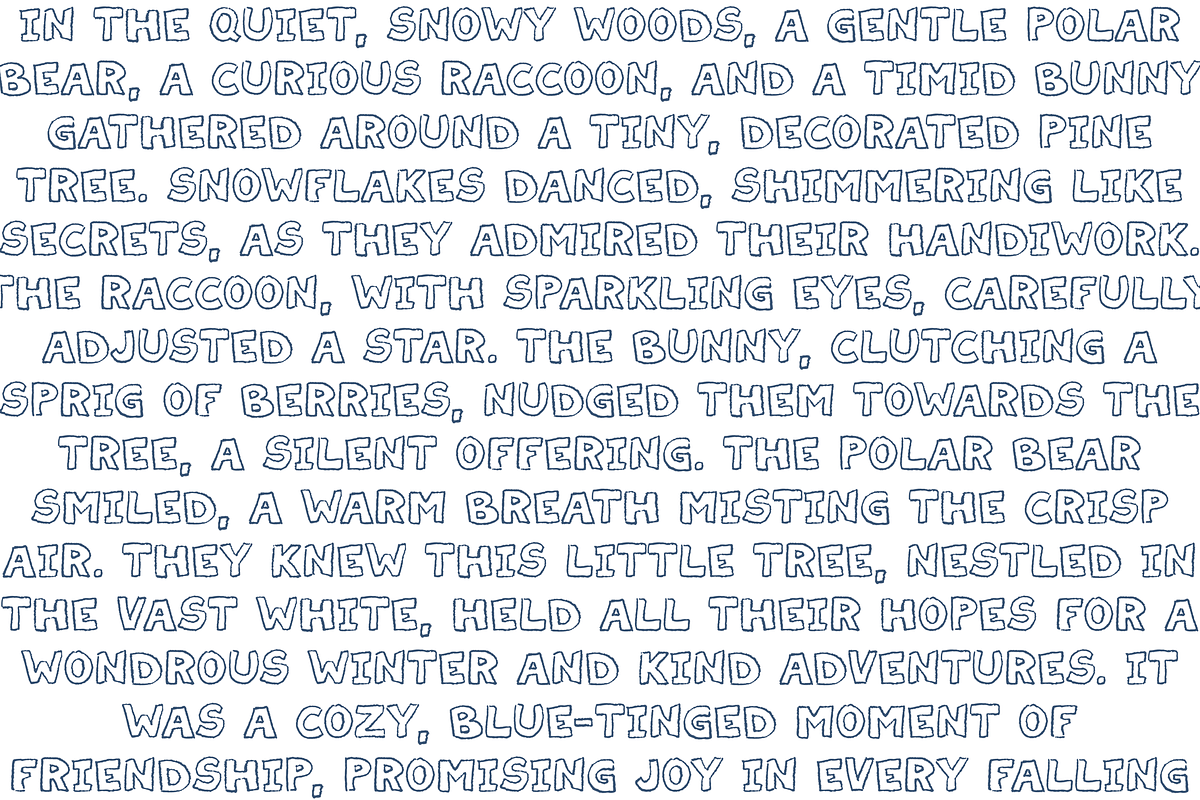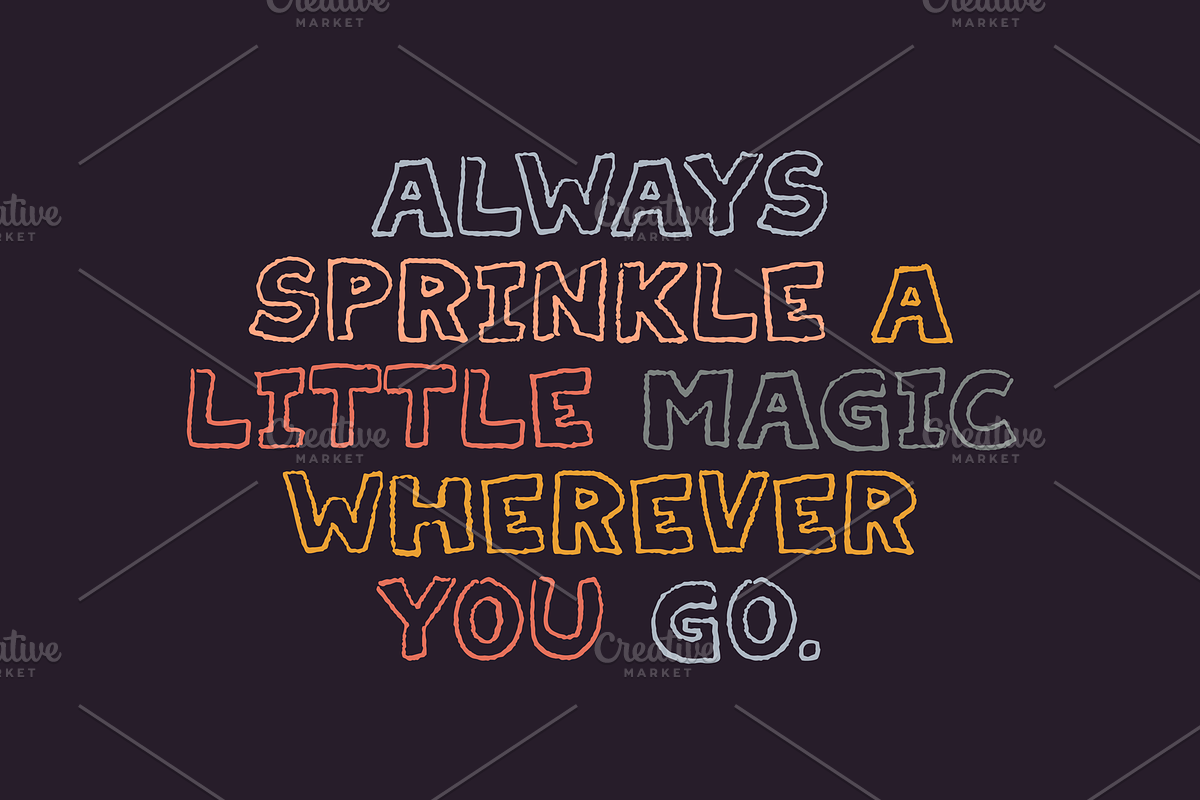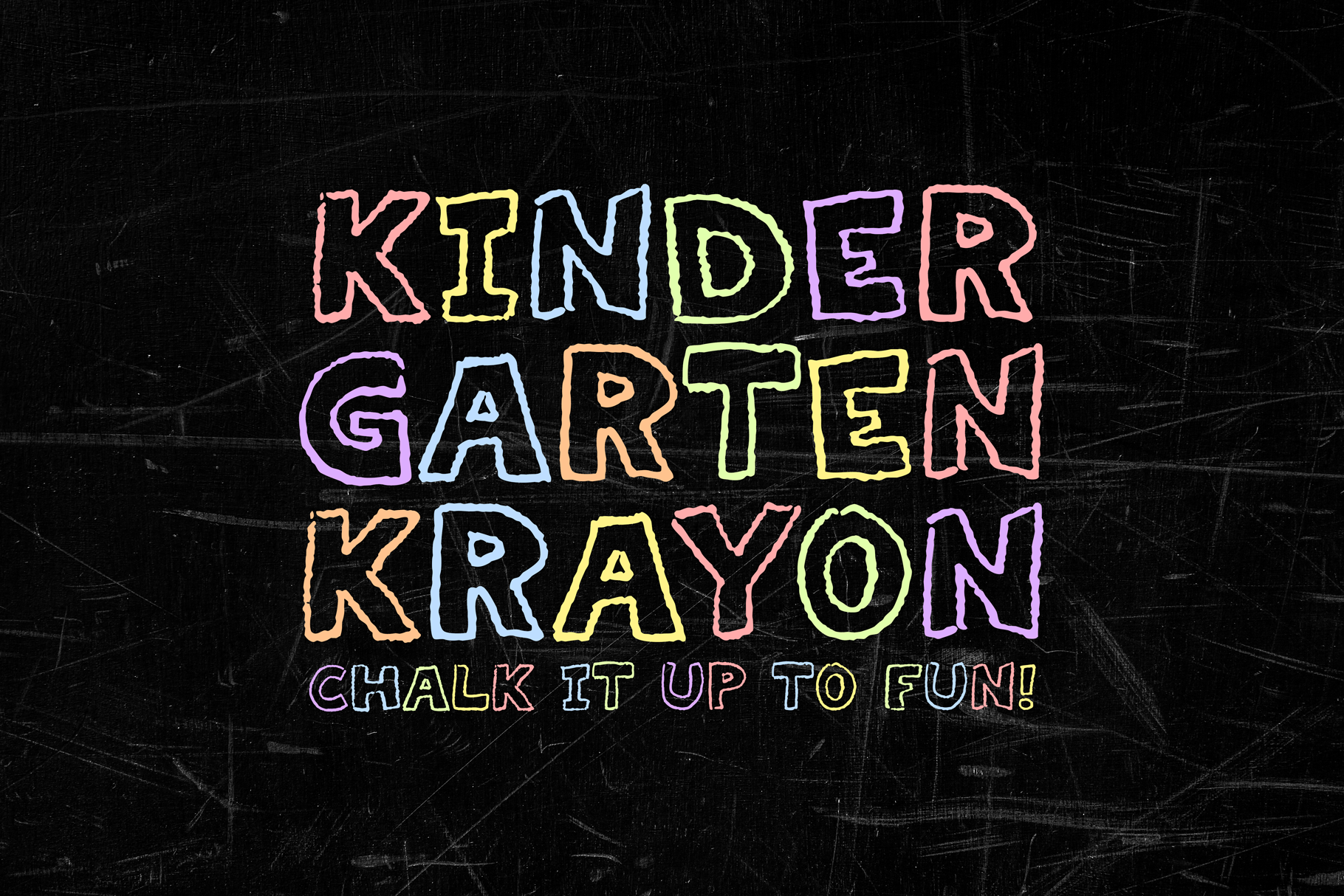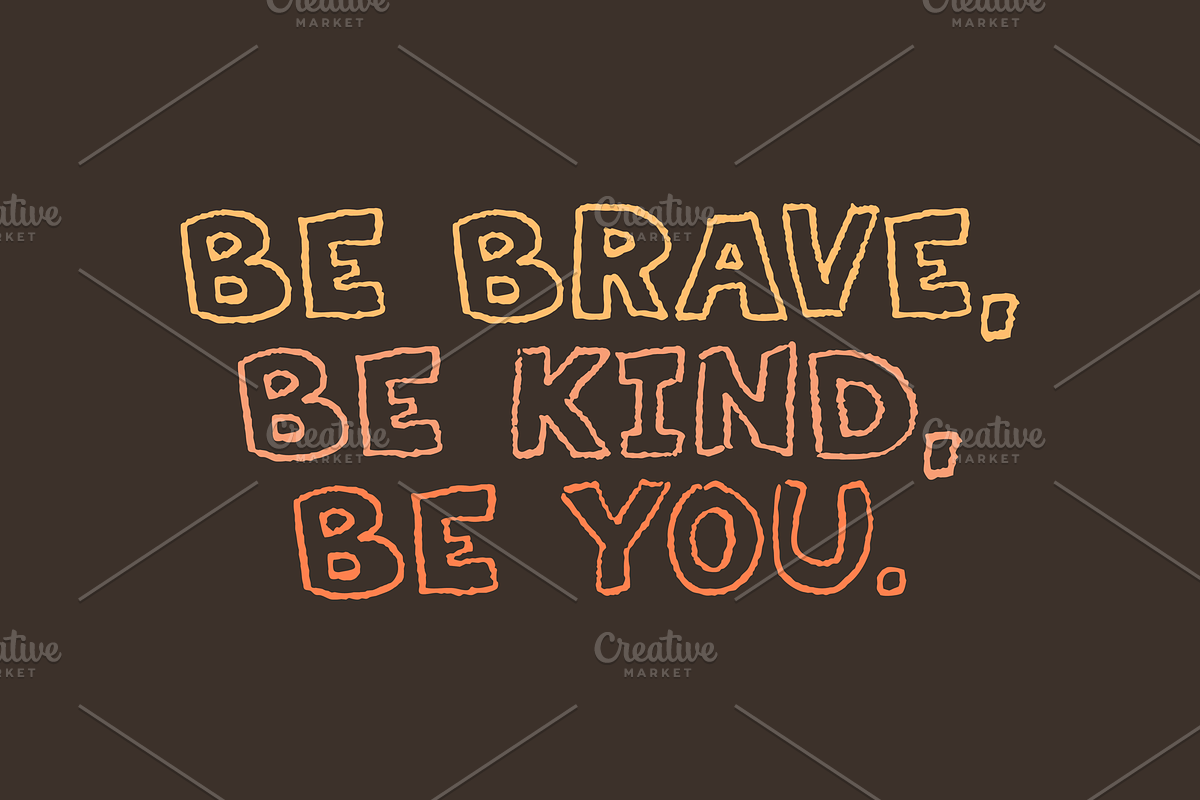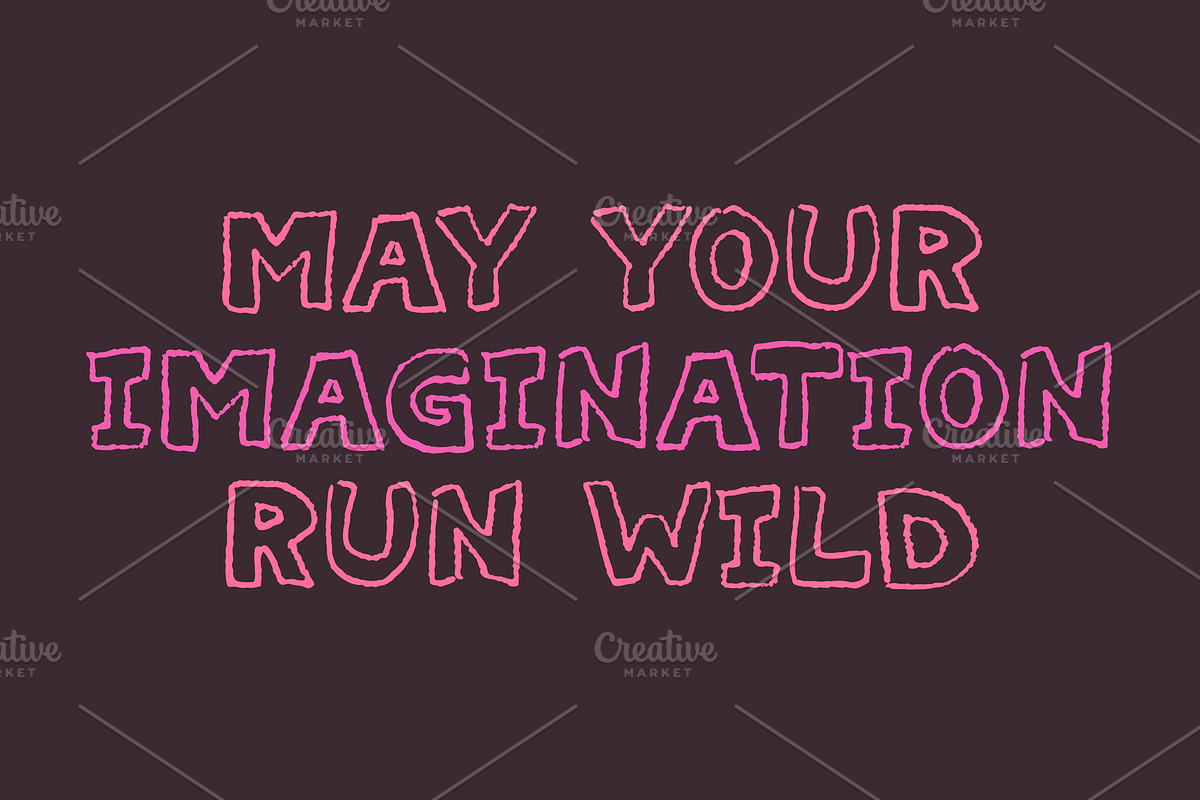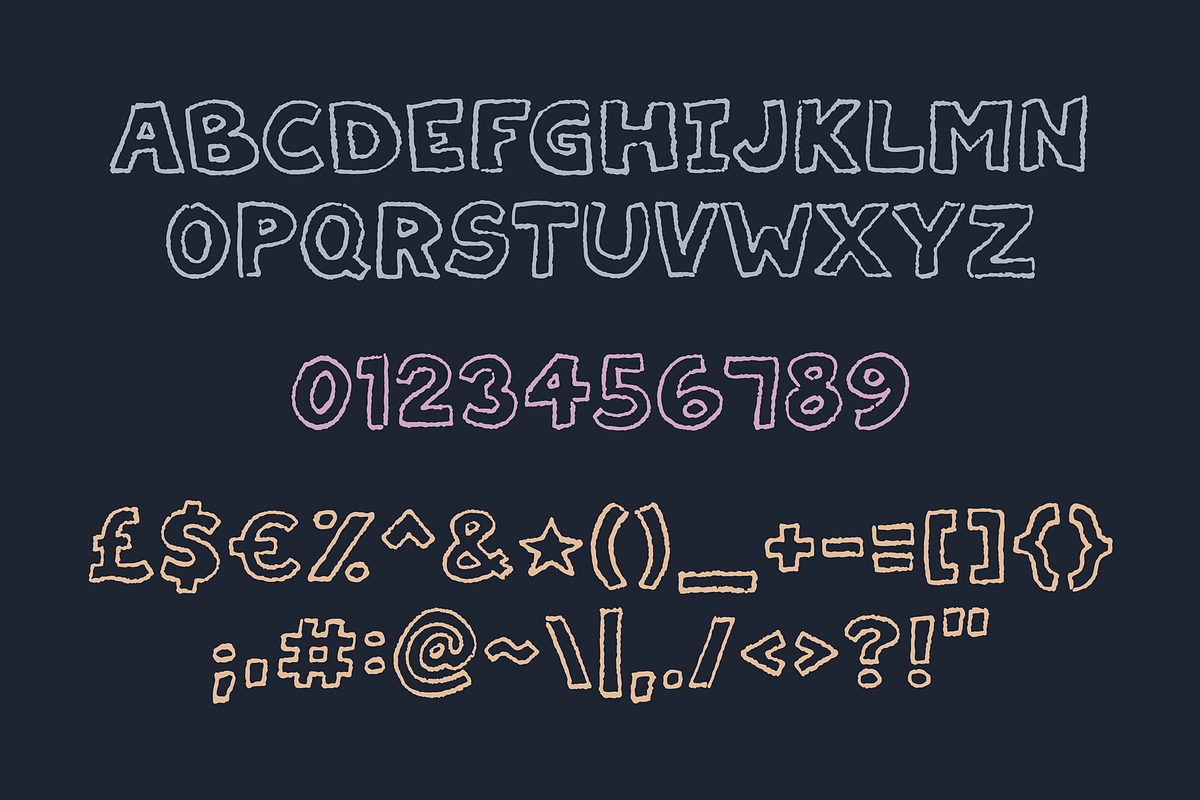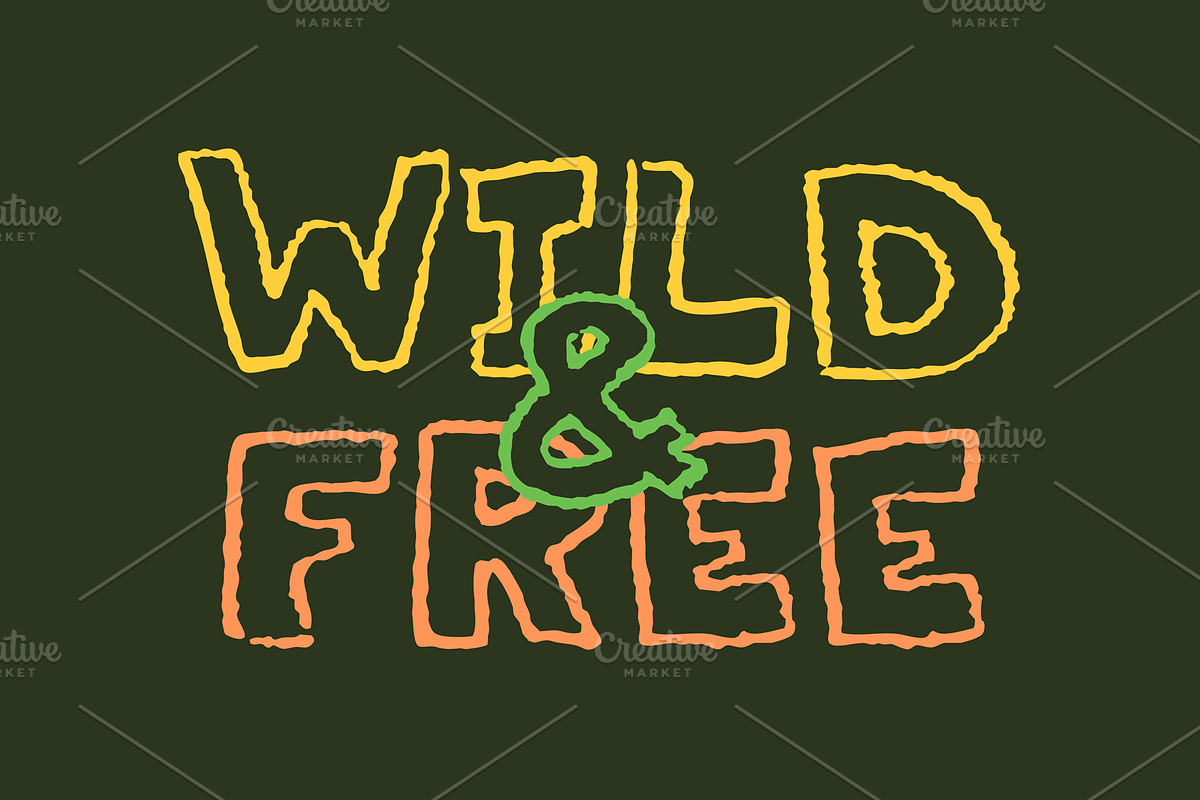
Kindergarten Krayon Font
Kindergarten Krayon brings the classic classroom feel to your creative projects. This playful, all-caps, textured display font mimics the look of chalk drawn on a dusty chalkboard, complete with charmingly uneven lines and a gentle grain effect. It's ideal for children's books, school event flyers, teacher resources, and packaging that needs a hand-drawn touch. No dust bunnies included!